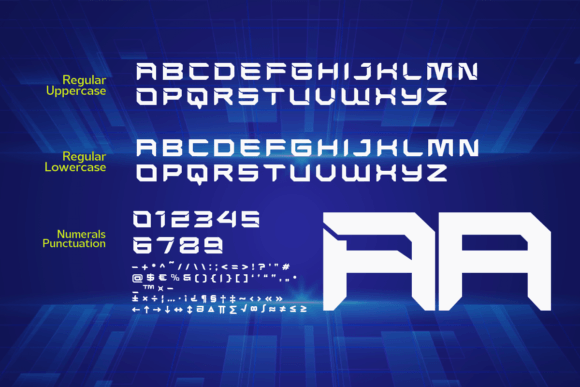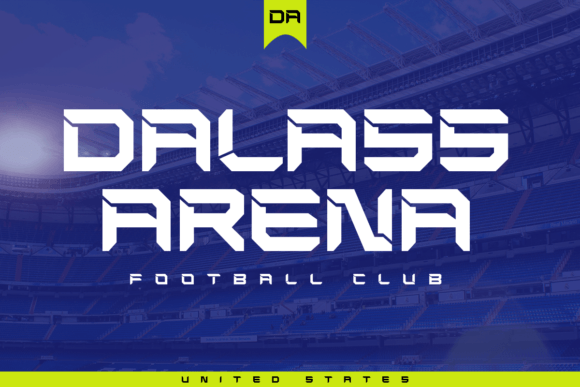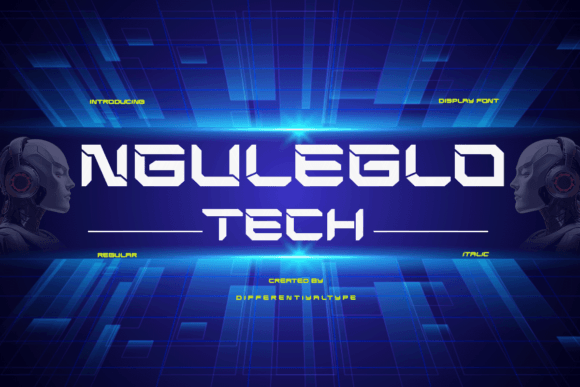
Nguleglo Tech Font
Designer: Differentialtype
Nguleglo Tech Font, a display font crafted with sophistication and innovation in mind. Whether you’re painting a picture of a celestial adventure or crafting a digital horizon, Nguleglo Tech is the key to lending your creative pursuits a touch of the extraordinary. Perfectly suited for diverse applications, this font allows you to frame your brand personality, conjure eye-gazing headlines, whip up intriguing movie posters or fuel addictive gaming experiences.
Nguleglo Tech carries a distinct stencil style in its uppercase while its lowercase exudes a solid appeal, both designed to be used in unison or independently. Reach for the unmatched flair of Nguleglo Tech to add a unique, cutting-edge touch to your creative canvas, accentuating your designs with stand-out distinction.